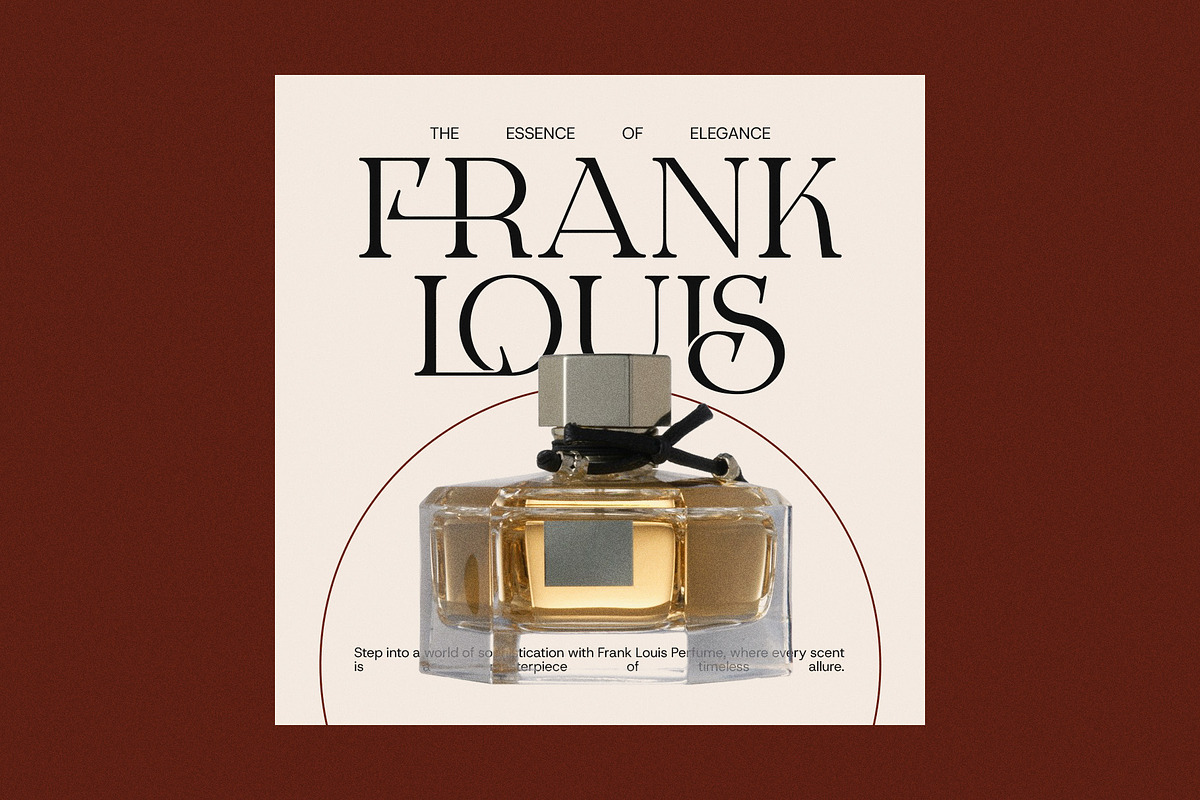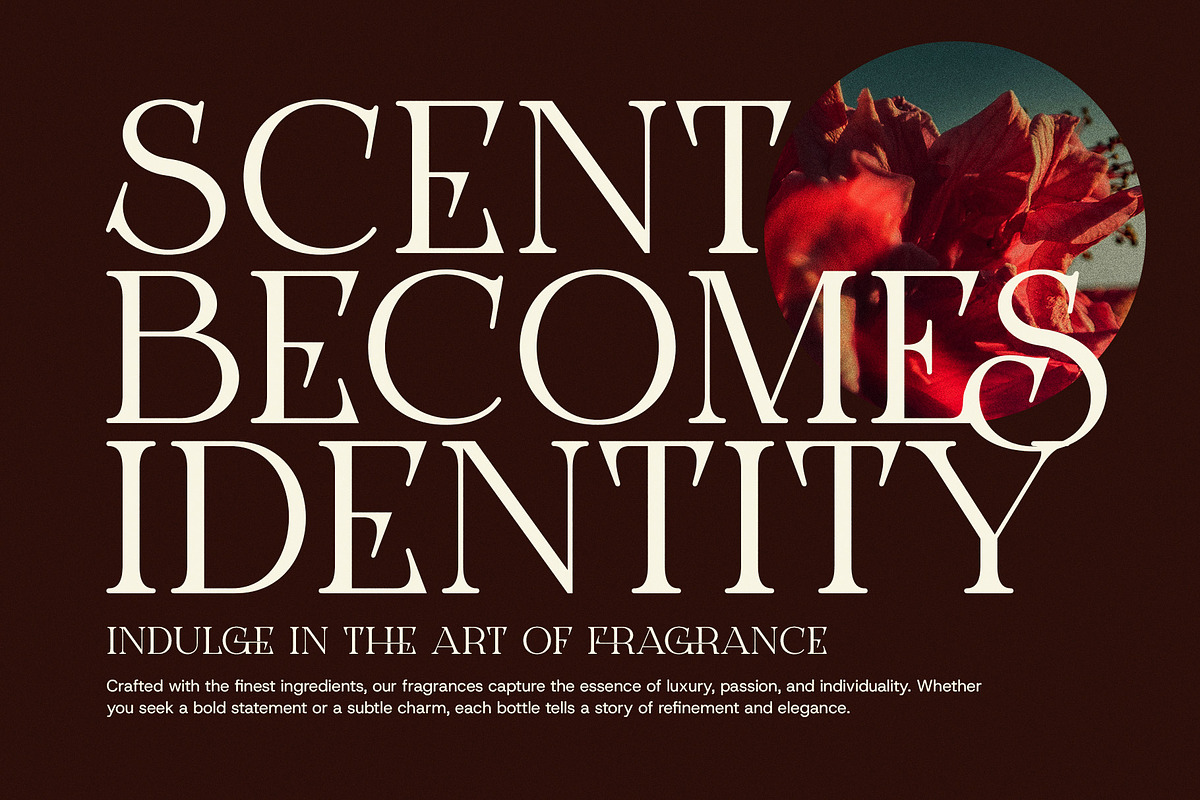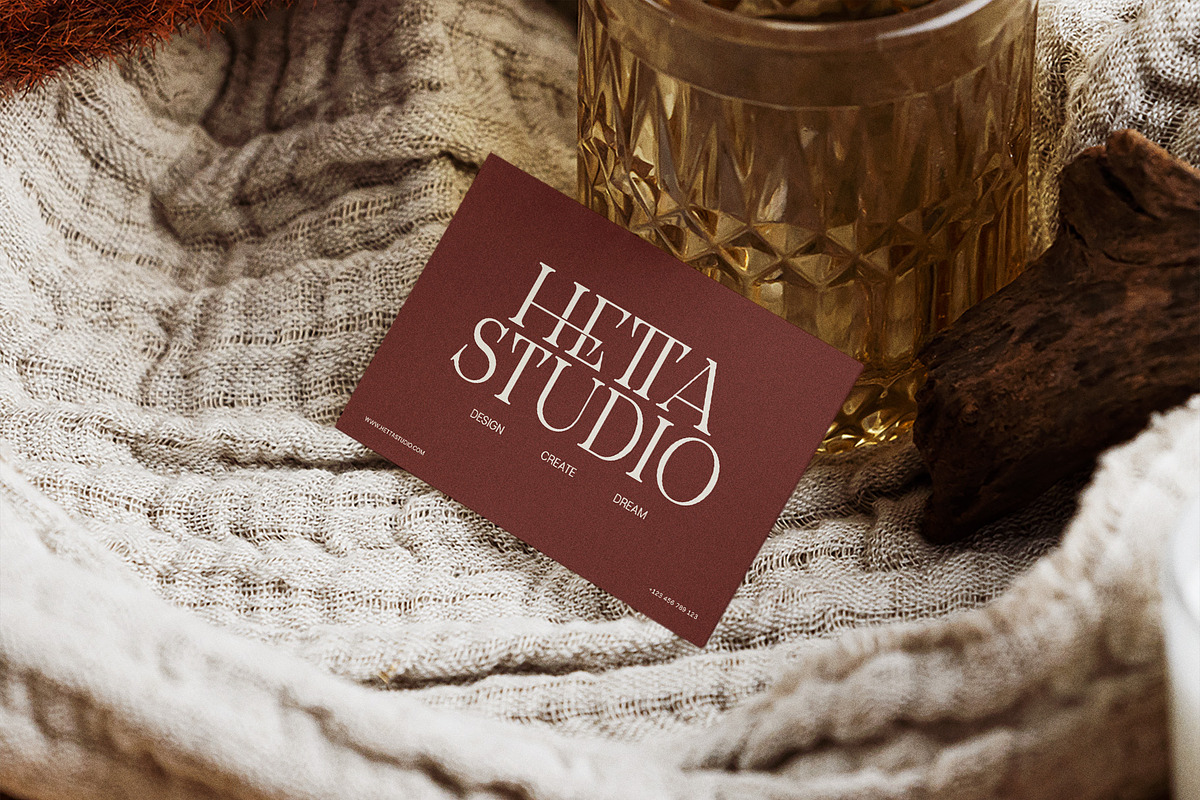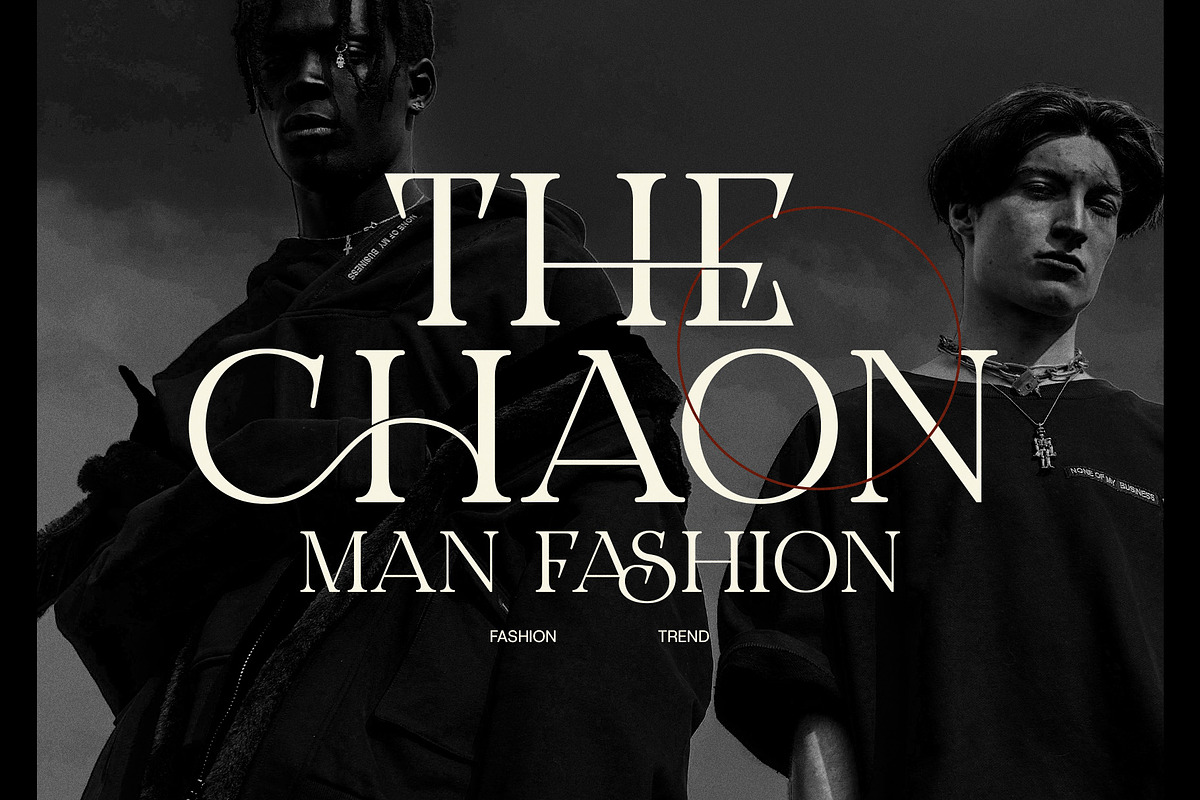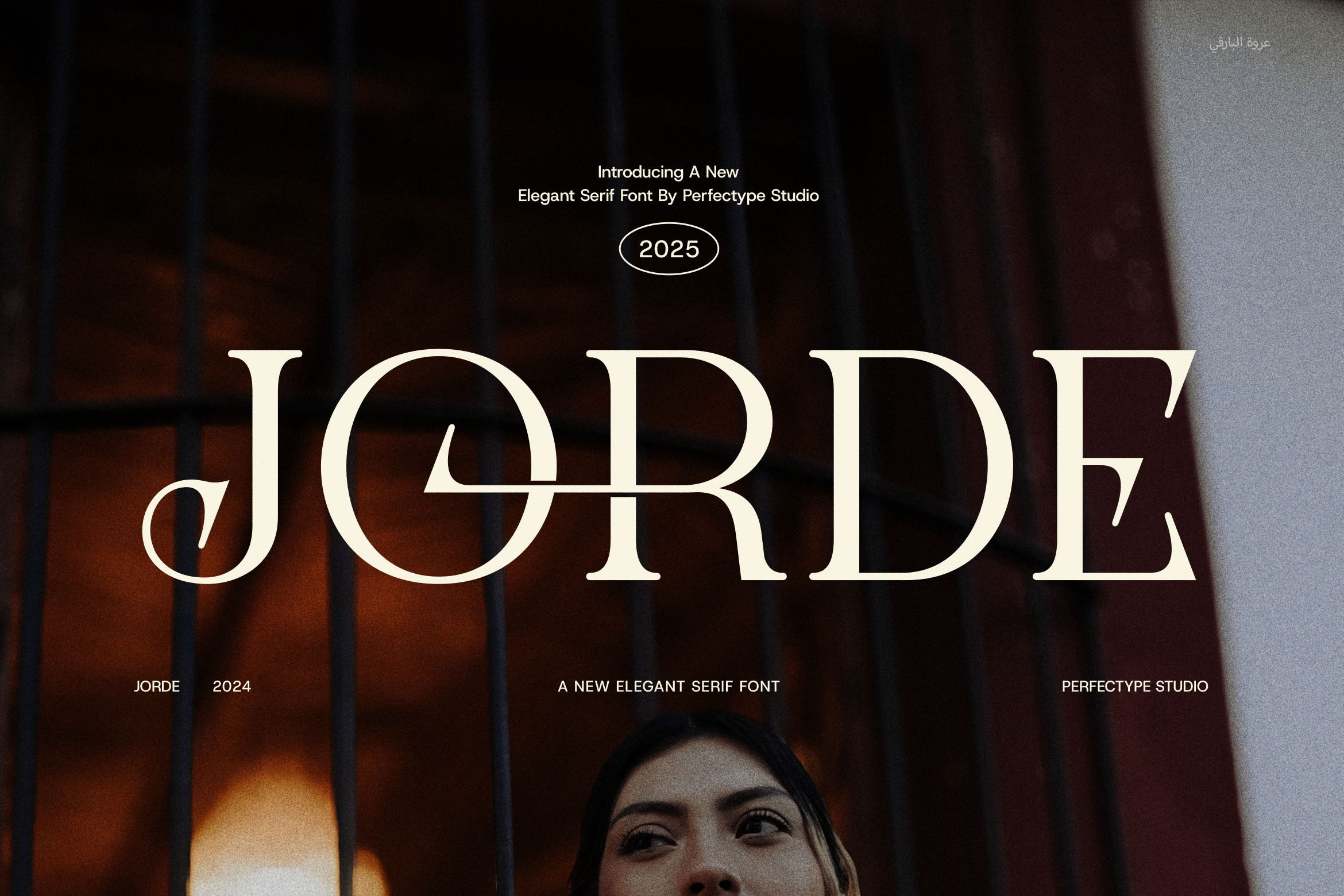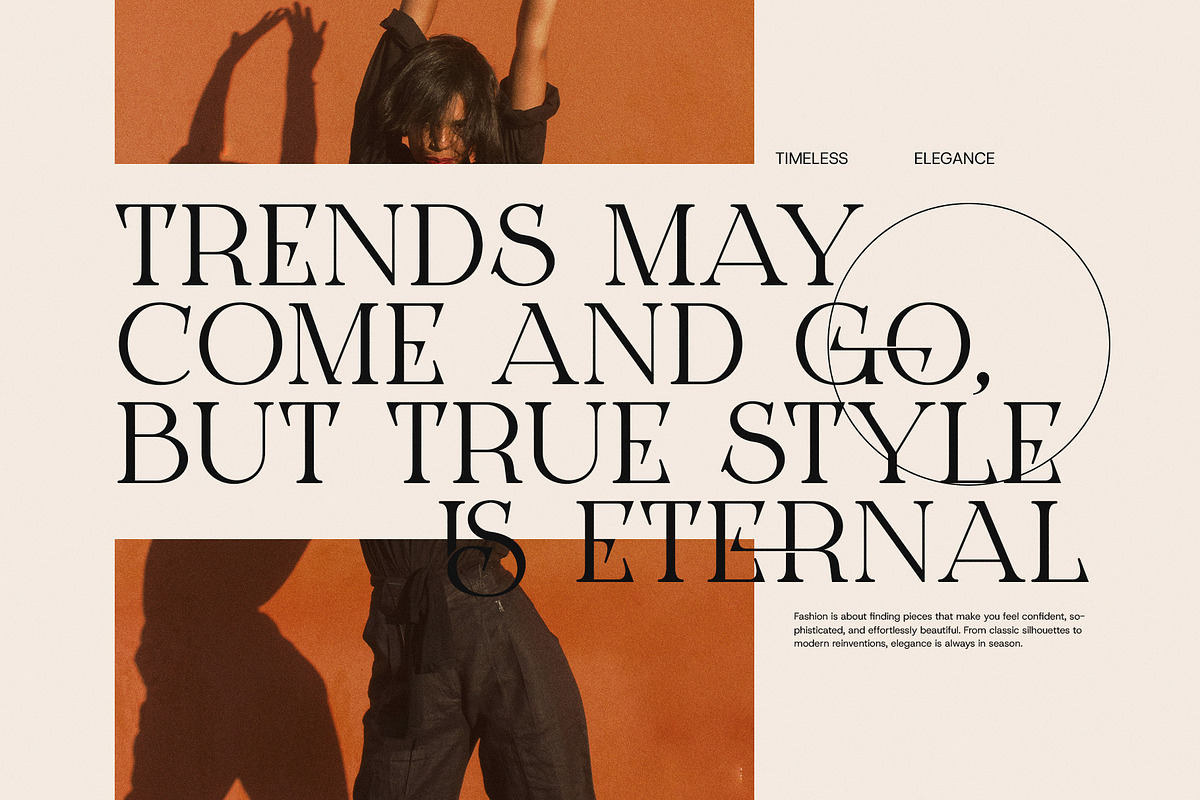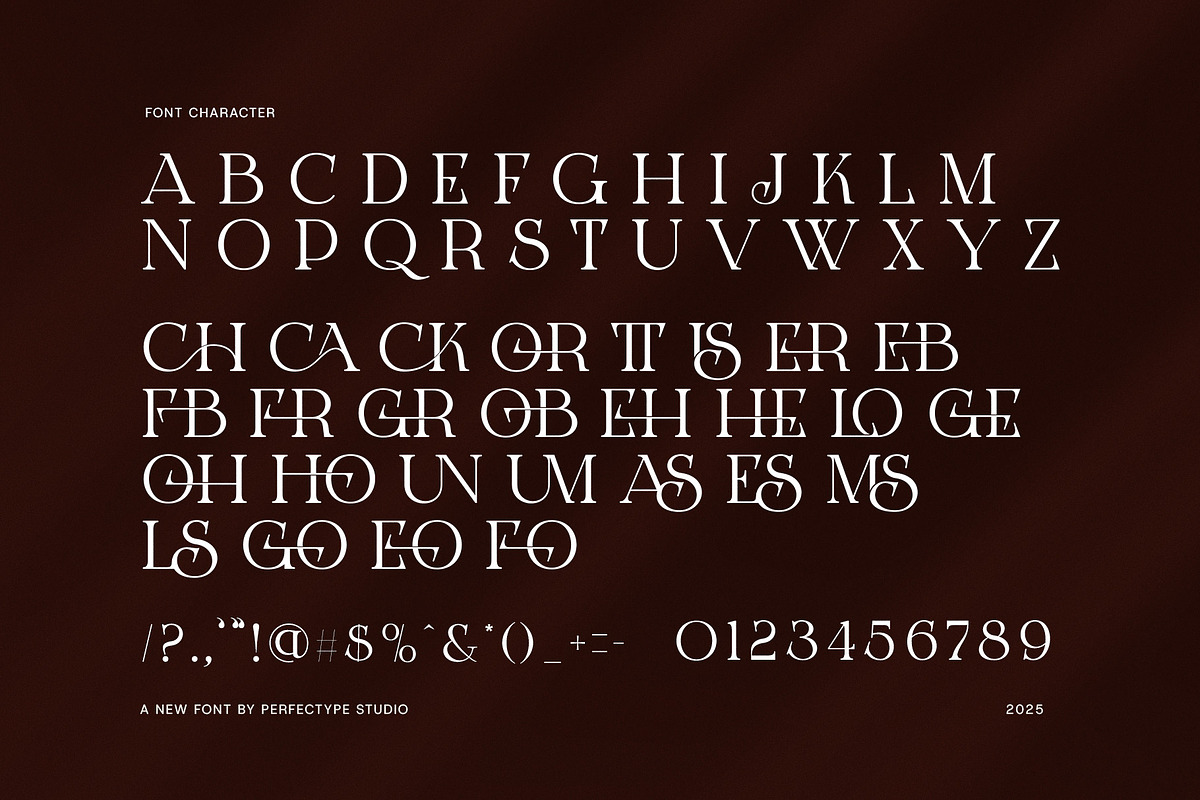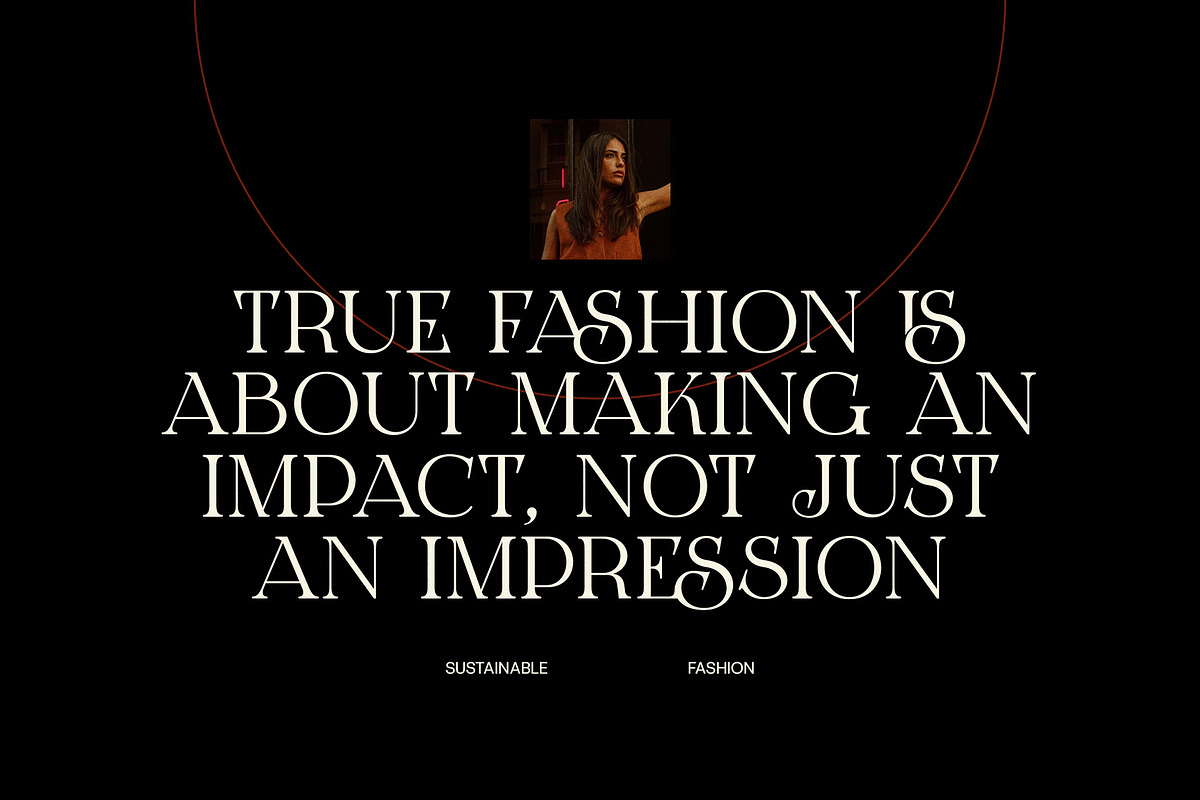
Jorde Logotype Serif Font
Jorde Logotype Serif Font is a bold yet refined serif typeface designed to make a lasting impression. Merging classic serif elements with modern elegance, Jorde brings sophistication and versatility to your creative toolkit—perfect for designers who want their typography to speak with clarity, charm, and confidence.
With its high-contrast strokes, refined curves, and beautifully crafted ligatures, Jorde is built for standout branding and visual storytelling. What makes this font truly unique is its logotype-oriented design approach. Each character is carefully sculpted to work beautifully as part of a logo or headline, while also performing smoothly in longer text applications.
Whether you're designing for fashion, lifestyle, editorial, or upscale products, Jorde adapts effortlessly. Its sleek alternates and decorative ligatures allow for custom wordmarks and expressive layouts that feel both timeless and on-trend.
Logo design and brand identity
Editorial and magazine titles
High-end packaging and product labels
Modern websites and creative portfolios
Boutique business visuals
Social media graphics and advertisements
Jorde Logotype Serif Font comes complete with uppercase and lowercase letters, punctuation, numerals, multilingual support, and a rich selection of alternates and ligatures to enhance your typographic creativity. Whether you’re building a chic brand from scratch or refreshing your design system, Jorde offers the flexibility and elegance needed to craft a cohesive and compelling visual language.
From fashion-forward branding to minimalist web interfaces, Jorde delivers sophistication with a modern edge. Its clean yet expressive letterforms ensure your message is both readable and memorable—ideal for premium brands, design studios, and creative professionals who value aesthetic excellence.